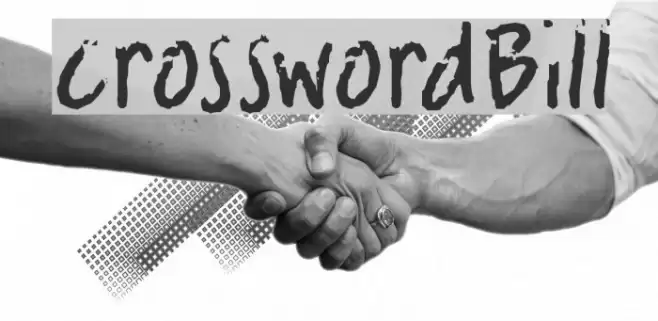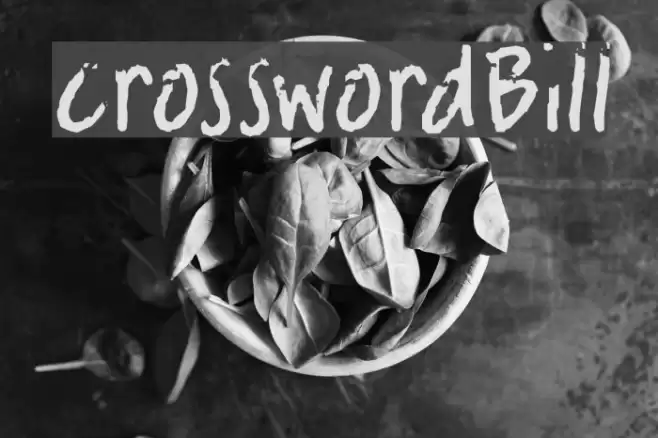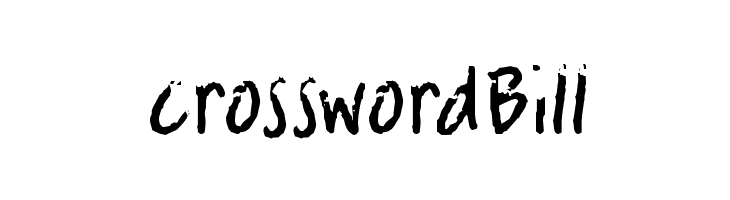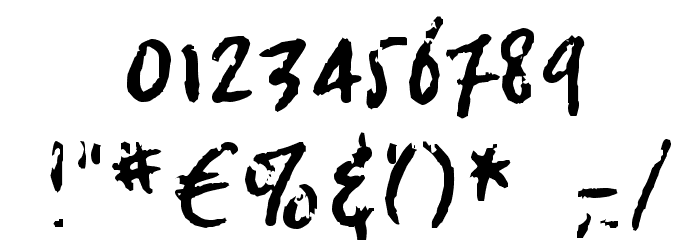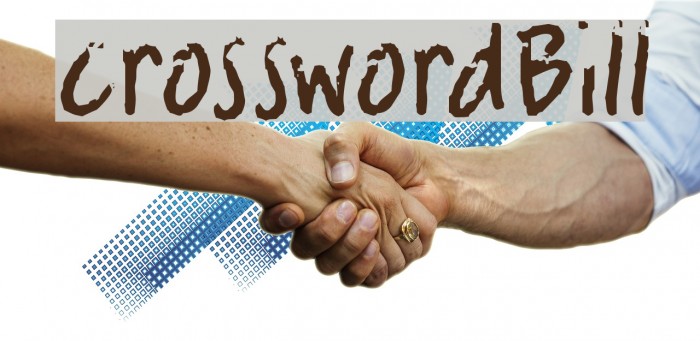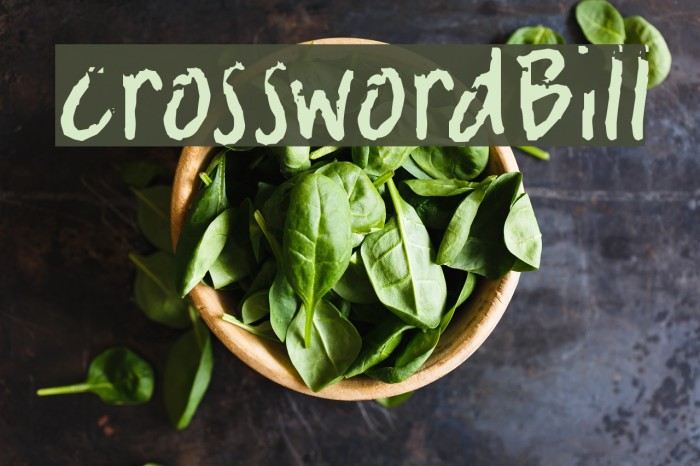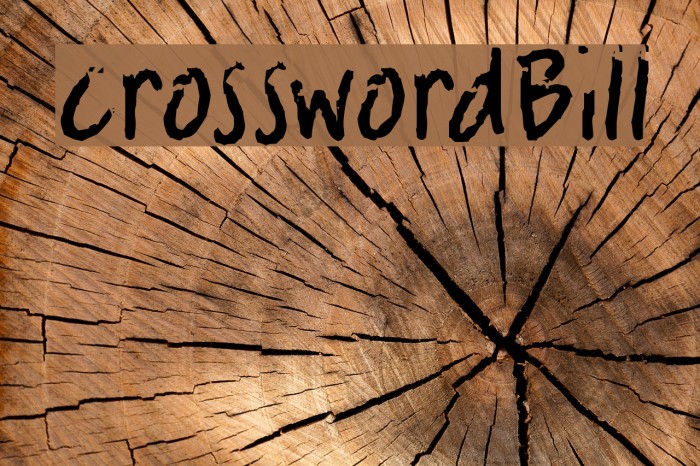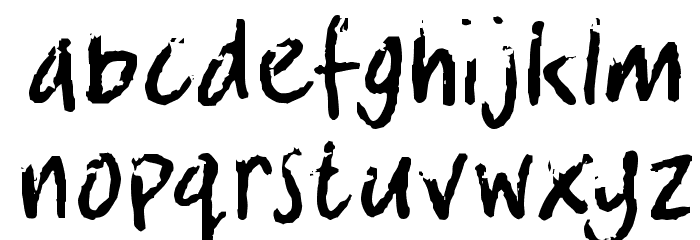
crosswordBill Font
crosswordBill Description
This font exhibits a bold, expressive handwritten style with a brush-like texture. The characters are irregular and dynamic, giving a sense of movement and energy. The uppercase and lowercase letters maintain a consistent style, with varying stroke widths that add to the font's lively appearance. The numbers and special characters are equally expressive, fitting seamlessly with the overall aesthetic. This font's unique and artistic design makes it stand out, ideal for projects that require a personal touch.
A bold, expressive handwritten font with a brush-like texture from Handwritten fonts.
- Proposed Projects: Ideal for creative projects such as posters, invitations, branding, and artistic designs that require a personal and dynamic touch.